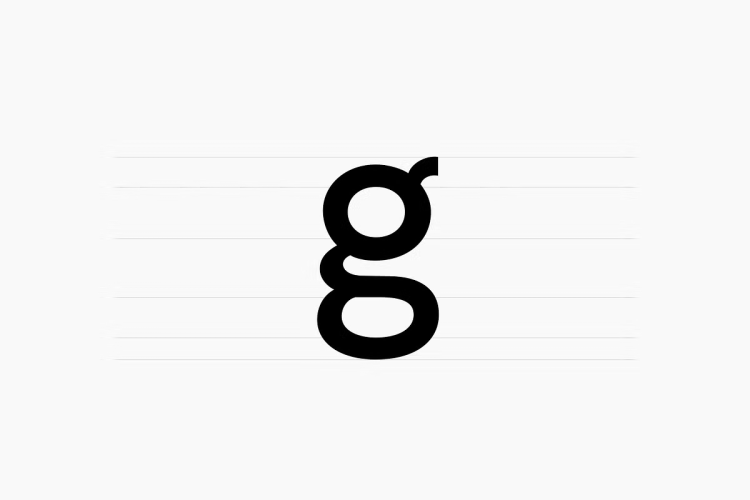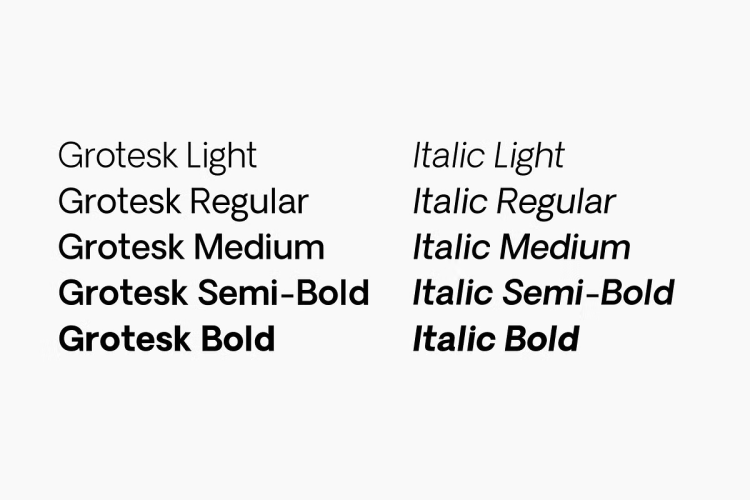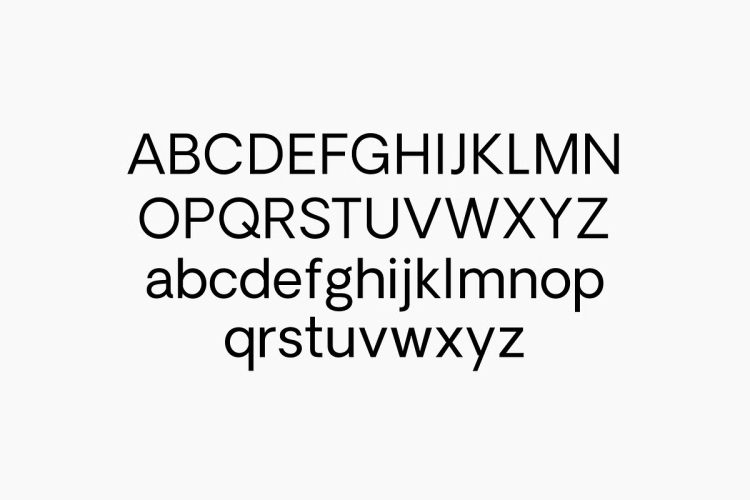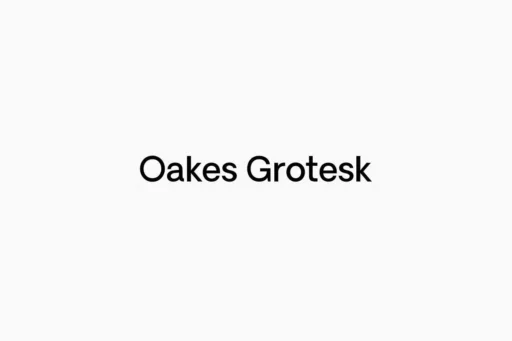
Oakes Grotesk Font
Oakes Grotesk font is a more corporate and professional version of the original Oakes typeface, designed for today’s design uses. As a general improvement of its flexibility, it adds new metrics that increase readability no matter the context, be it text or headings.
New changes include a new double-story ‘g,’ which gives the font a more conventional and refined look. Other improvements to other figures also enhance its legibility and functionality so that the text reads well without losing the delicate rounded shapes that are characteristic of the Oakes typeface.
Oakes Grotesk is perfect for the job when you need a modern design that is at the same time very professional and friendly, that is why it is suitable for corporate identifications, editorial design and other similar projects.
Where Oakes Grotesk Font works best
Oakes Grotesk Font stays legible at small sizes, which makes it a strong choice for navigation, buttons and dashboards in web design and app interfaces.
Clean sans serifs like Oakes Grotesk Font are the default language of SaaS, fintech and product branding.
What is Oakes Grotesk Font good for?
Oakes Grotesk Font is a Sans Serif Fonts typeface tagged Corporate, Elegant, Modern, Professional. It works well for headlines, logos, posters, social media graphics and branding projects that need a distinctive sans serif fonts look.